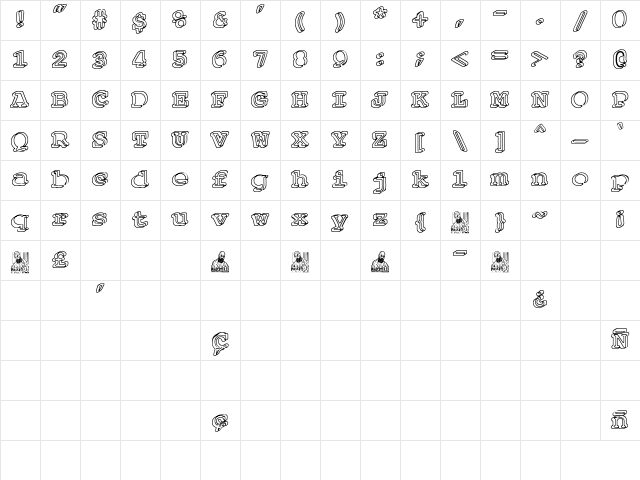
Courier Funeral has an approachable, lighthearted character - its loose, expressive forms are well-suited to children's content, casual branding, and fun-first design.
Font Pairing: Pairs well with a rounded or humanist sans for body copy, maintaining the friendly tone without relying on Courier Funeral to carry extended reading.
Pro Tip: Use Courier Funeral at larger display sizes where its expressive character can land. Pair with a clean, simple sans for body copy to maintain readability.